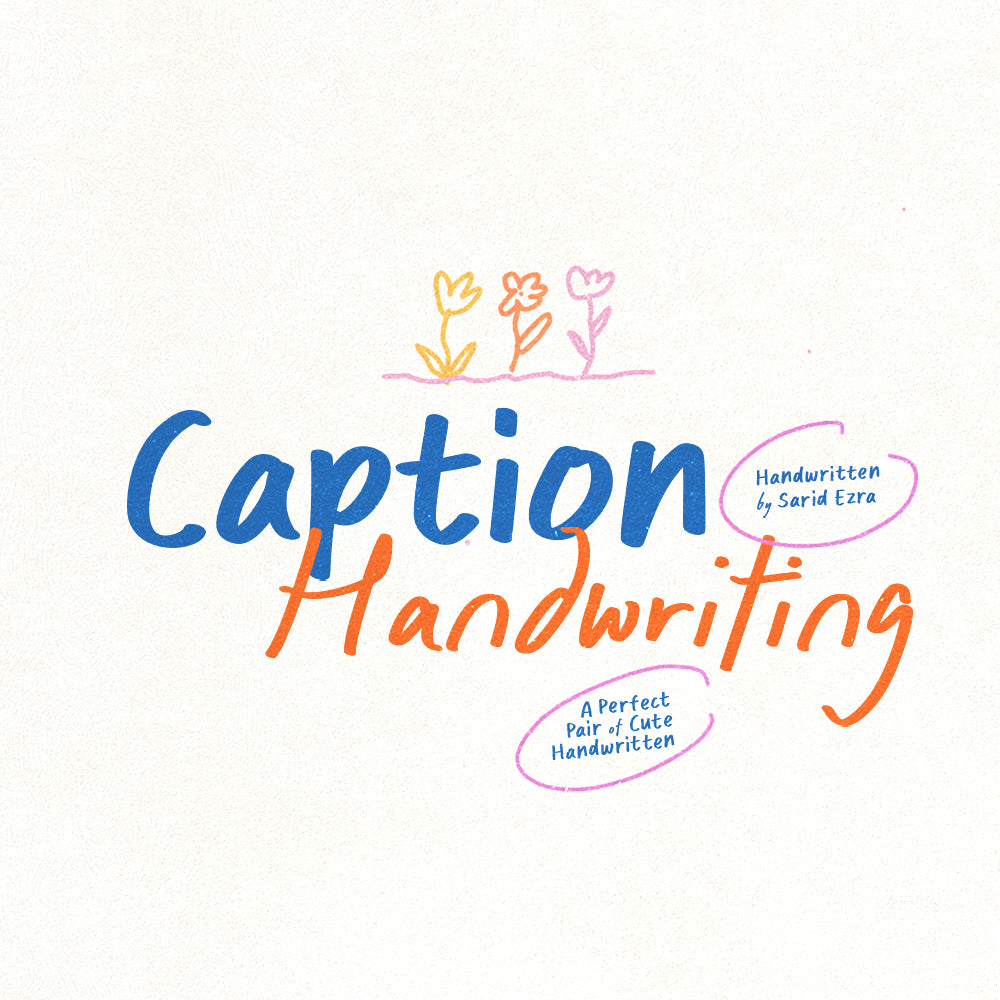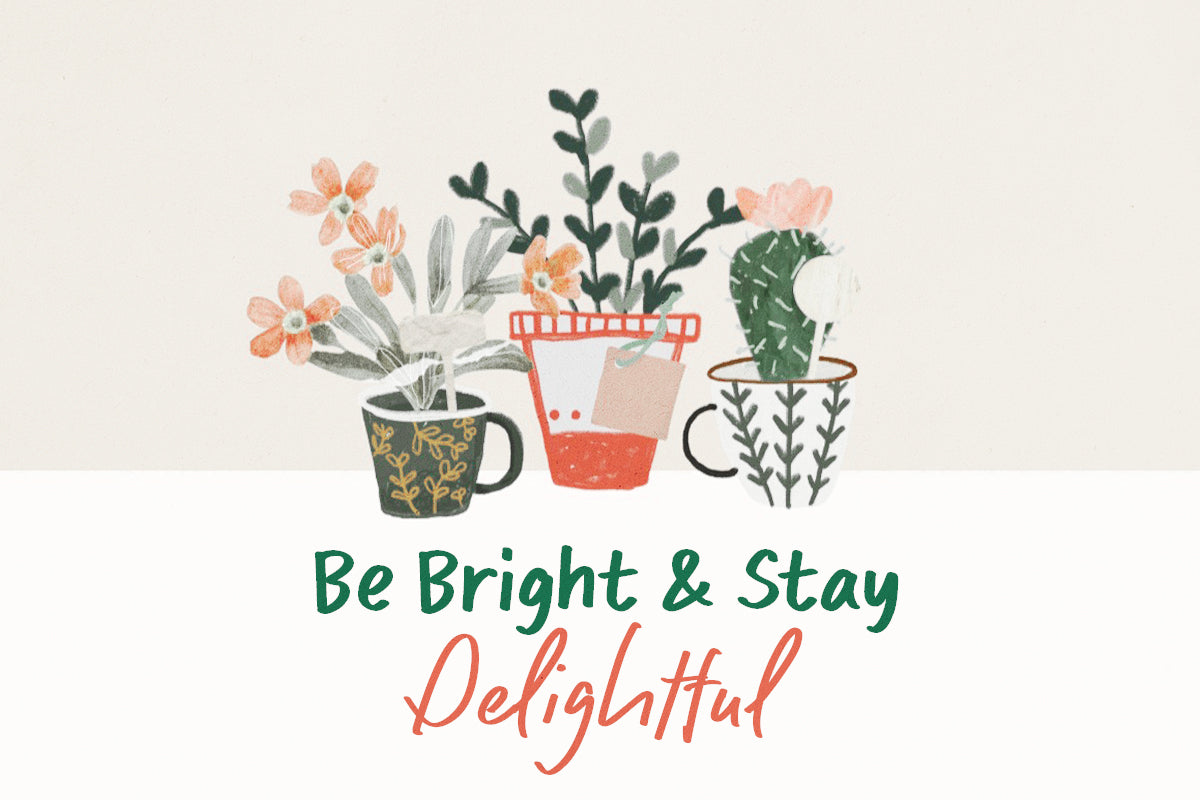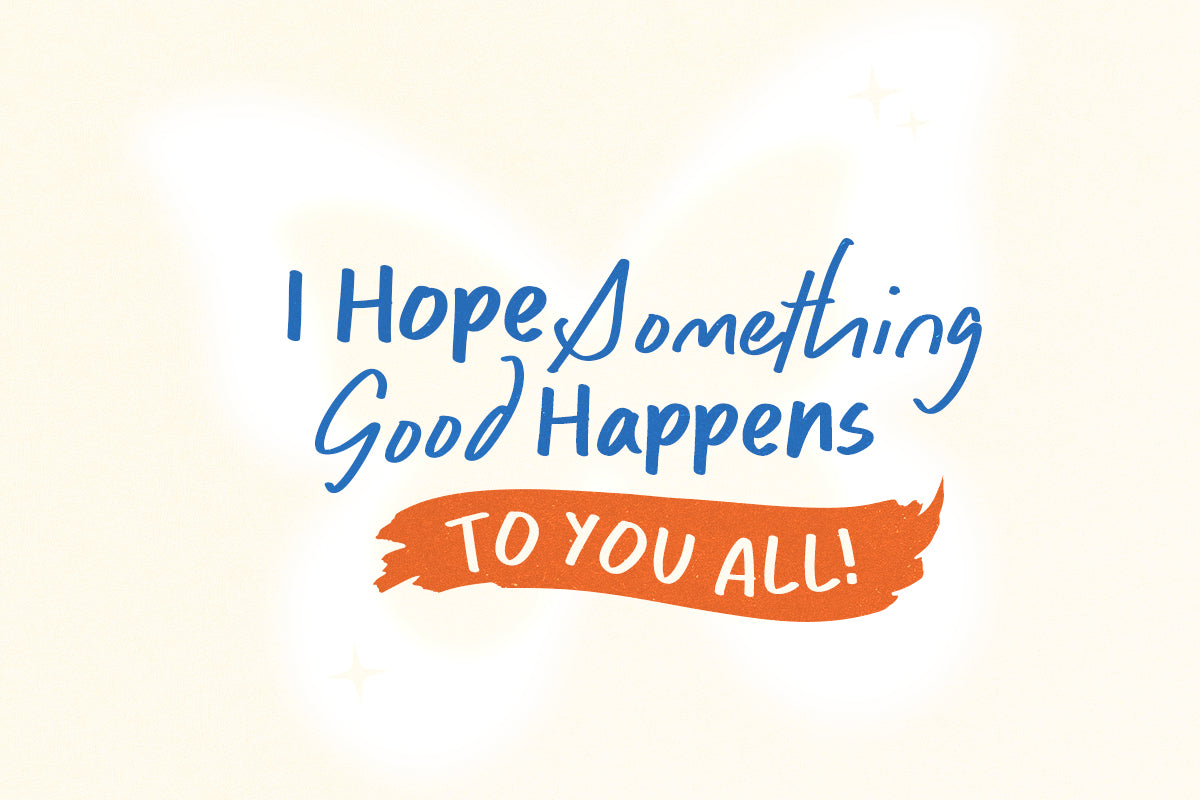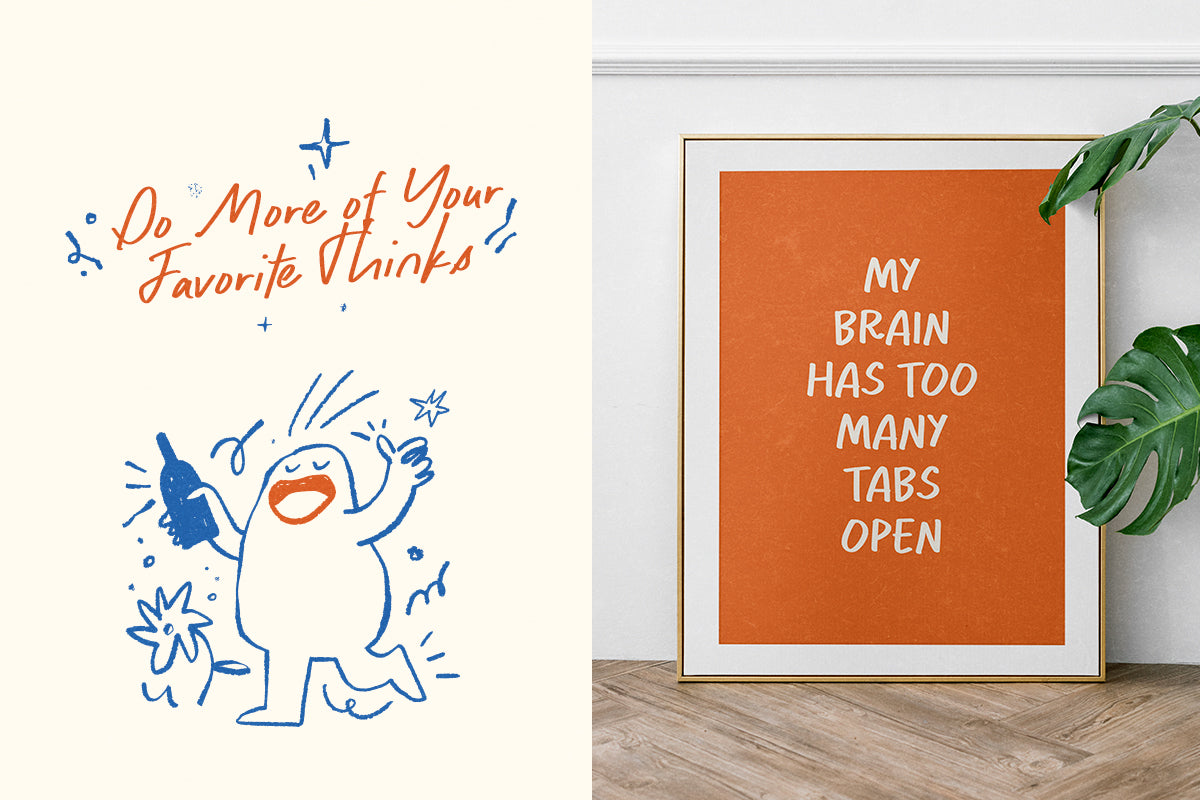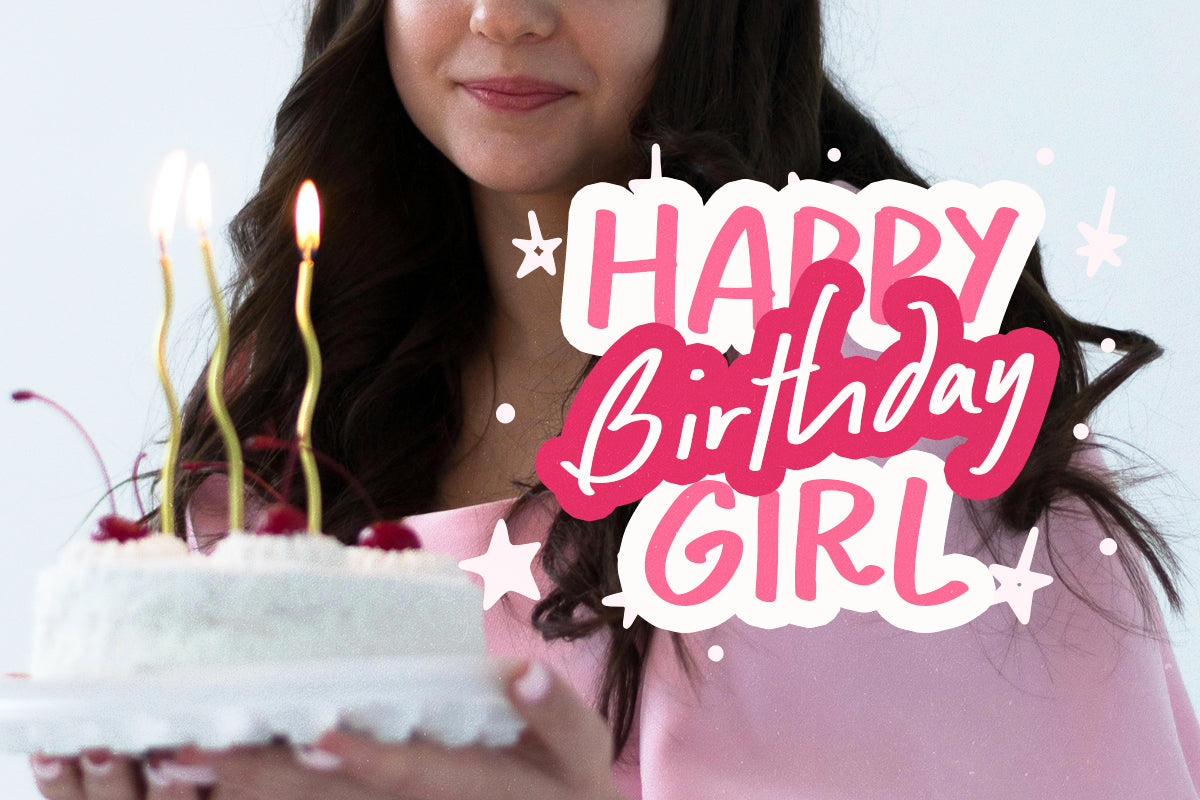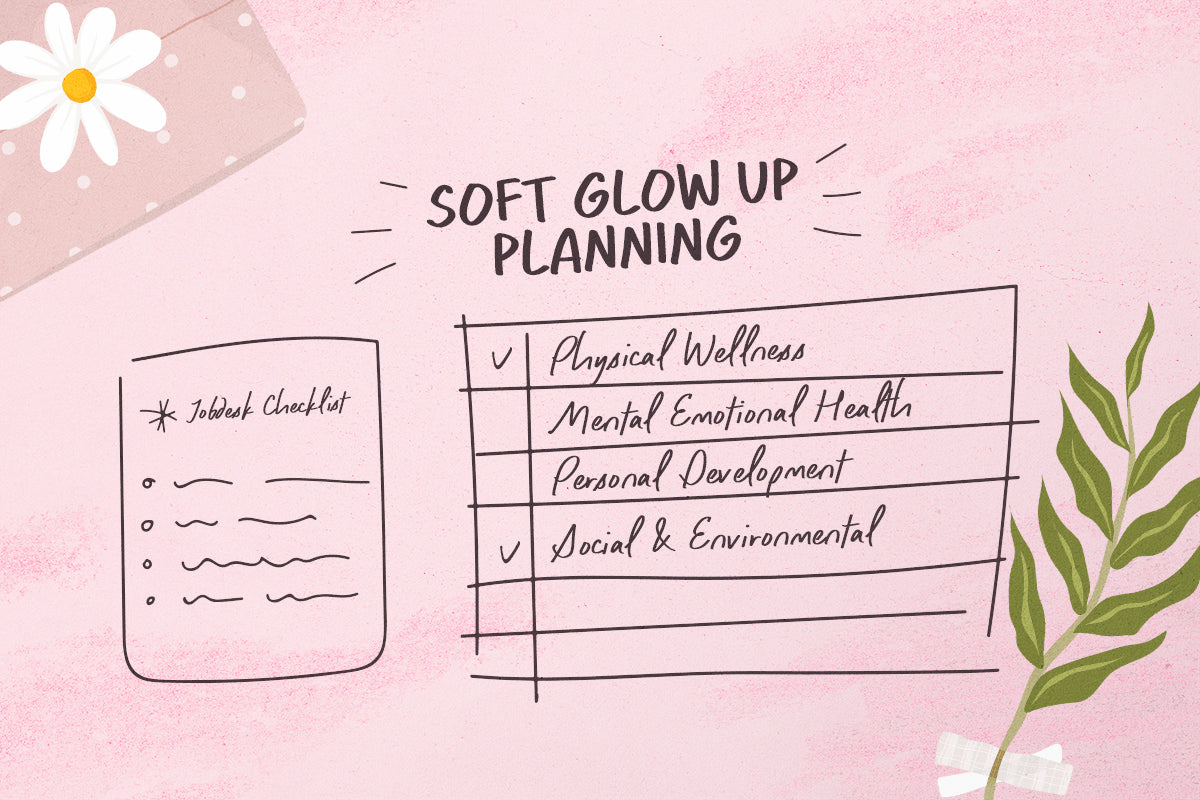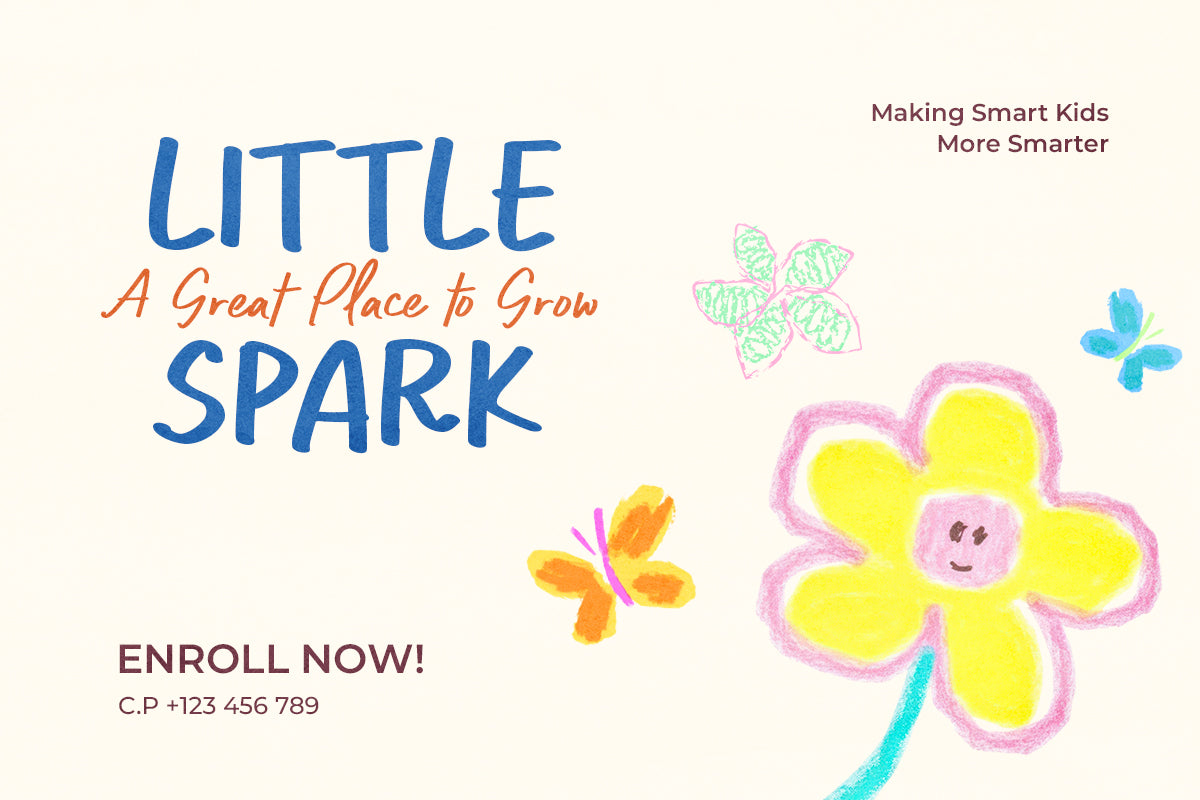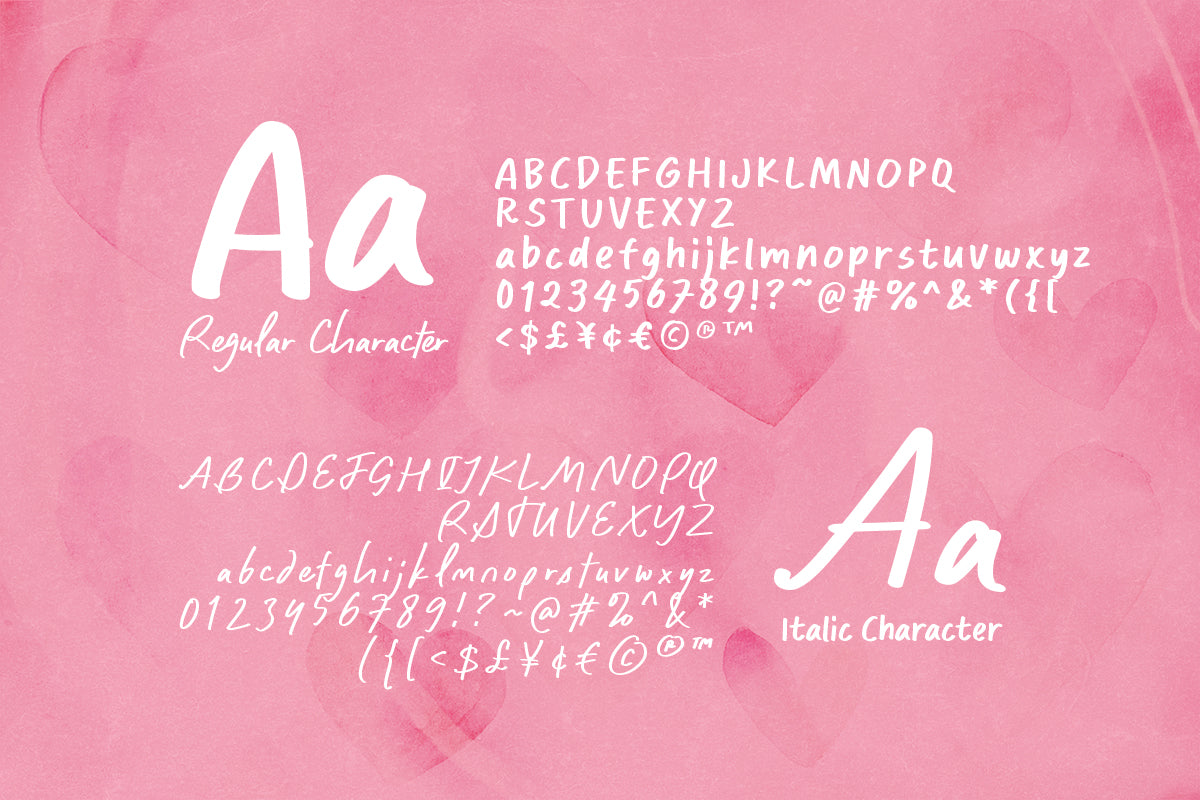
Caption Handwriting - Cute Font Duo
Caption Handwriting - Cute Font Duo includes a bold regular style and an italic signature script, designed for handwritten text. This font duo supports multiple languages and is suitable for various design applications, including logos and quotes.